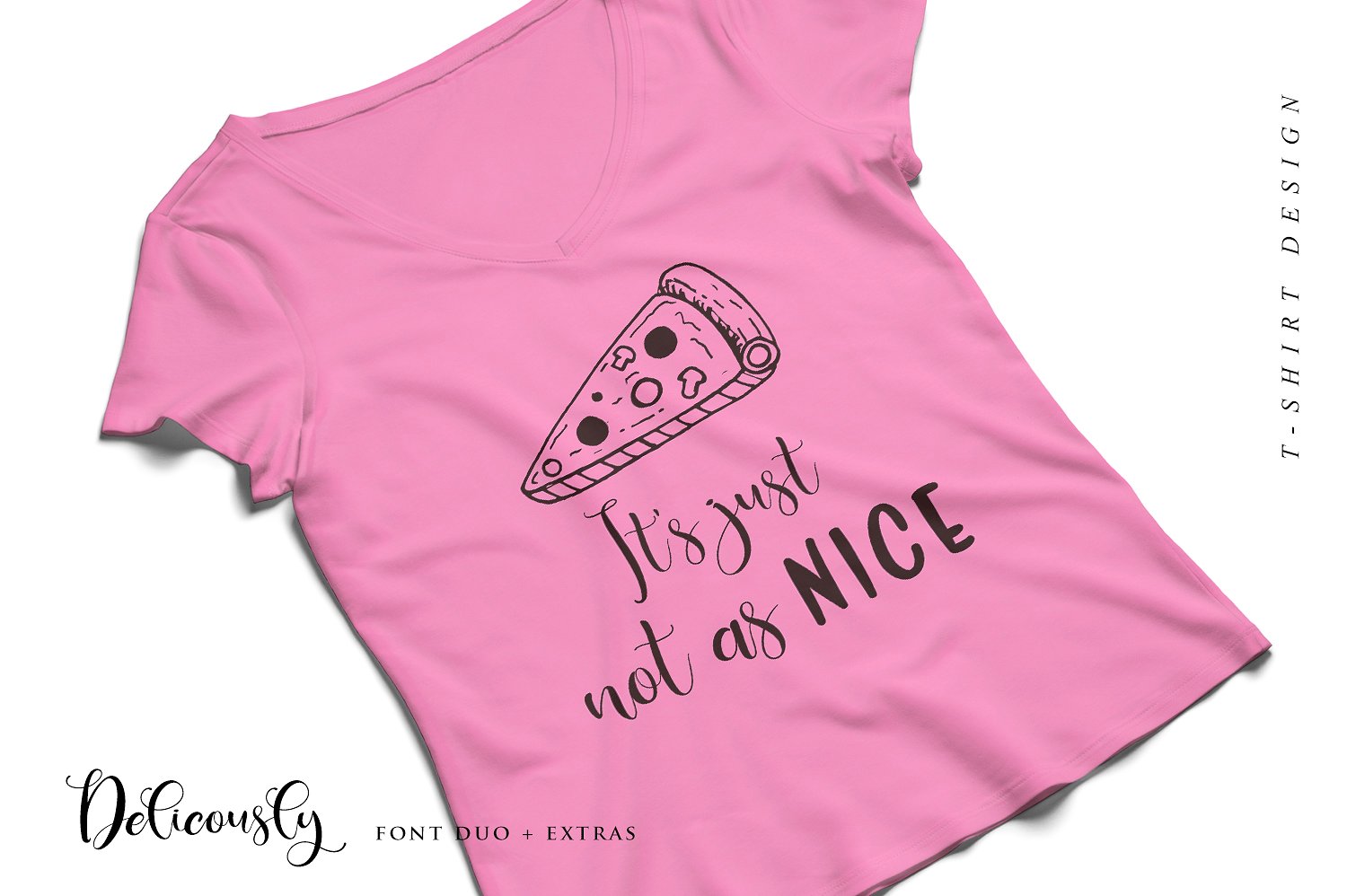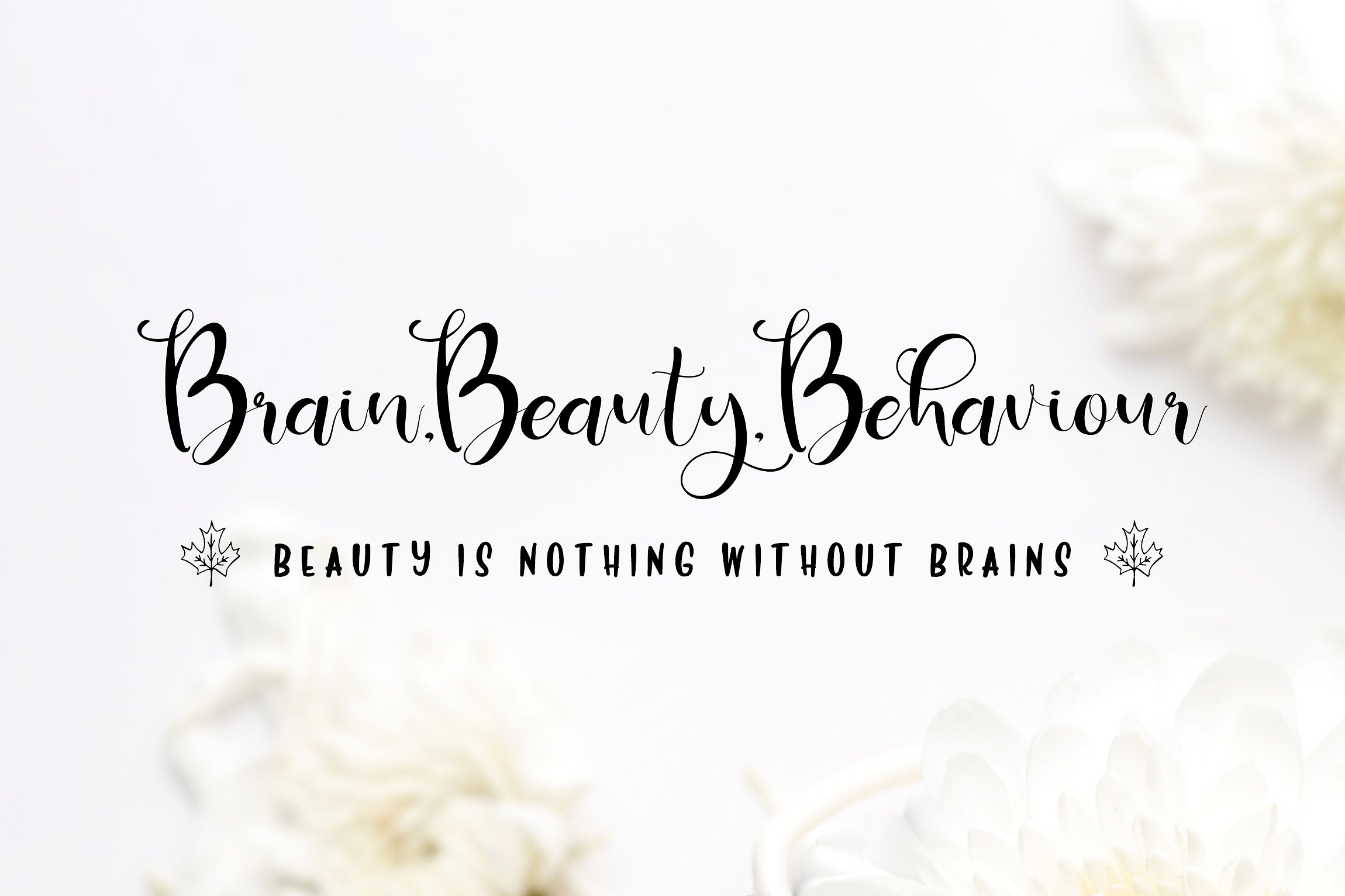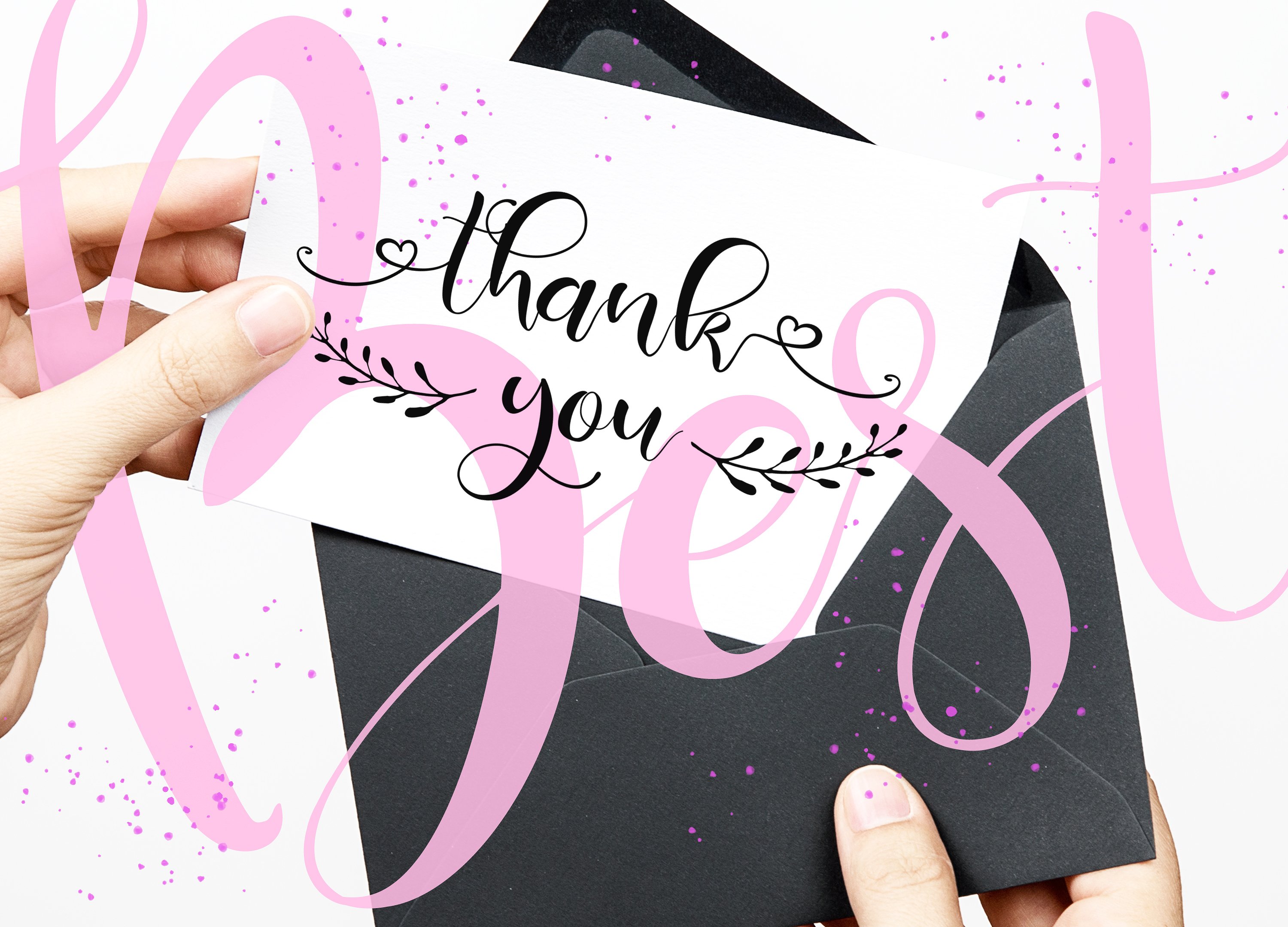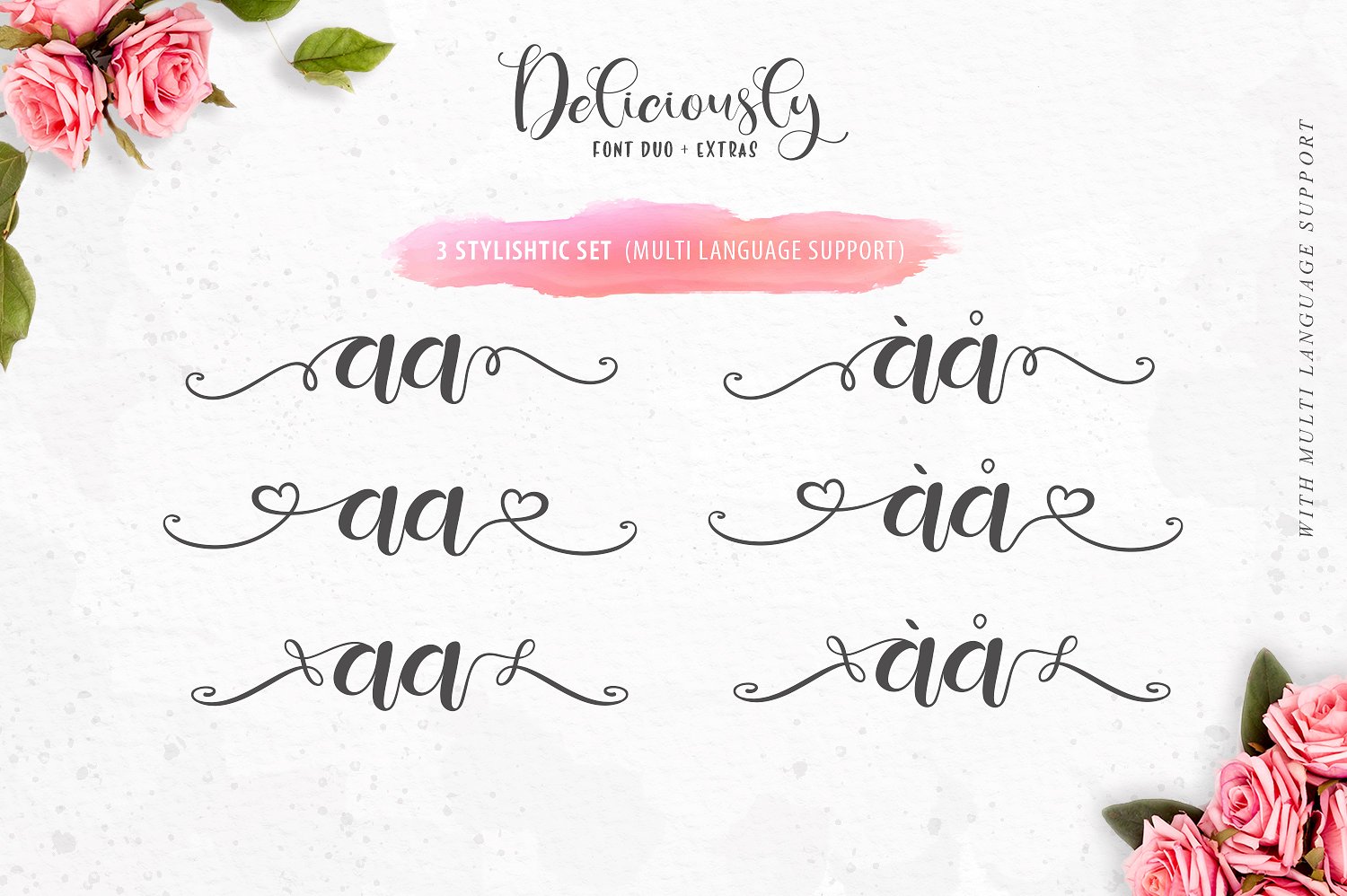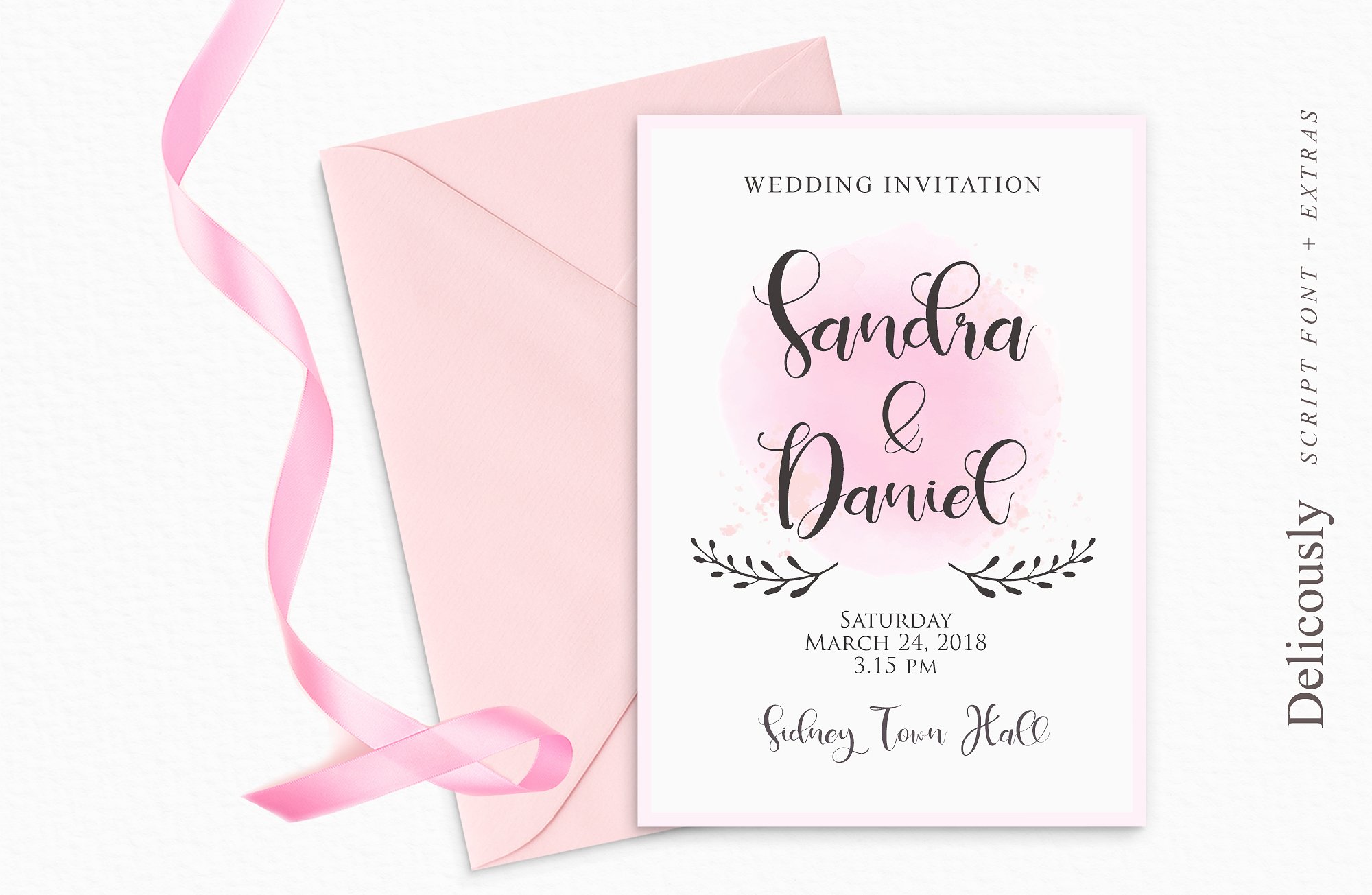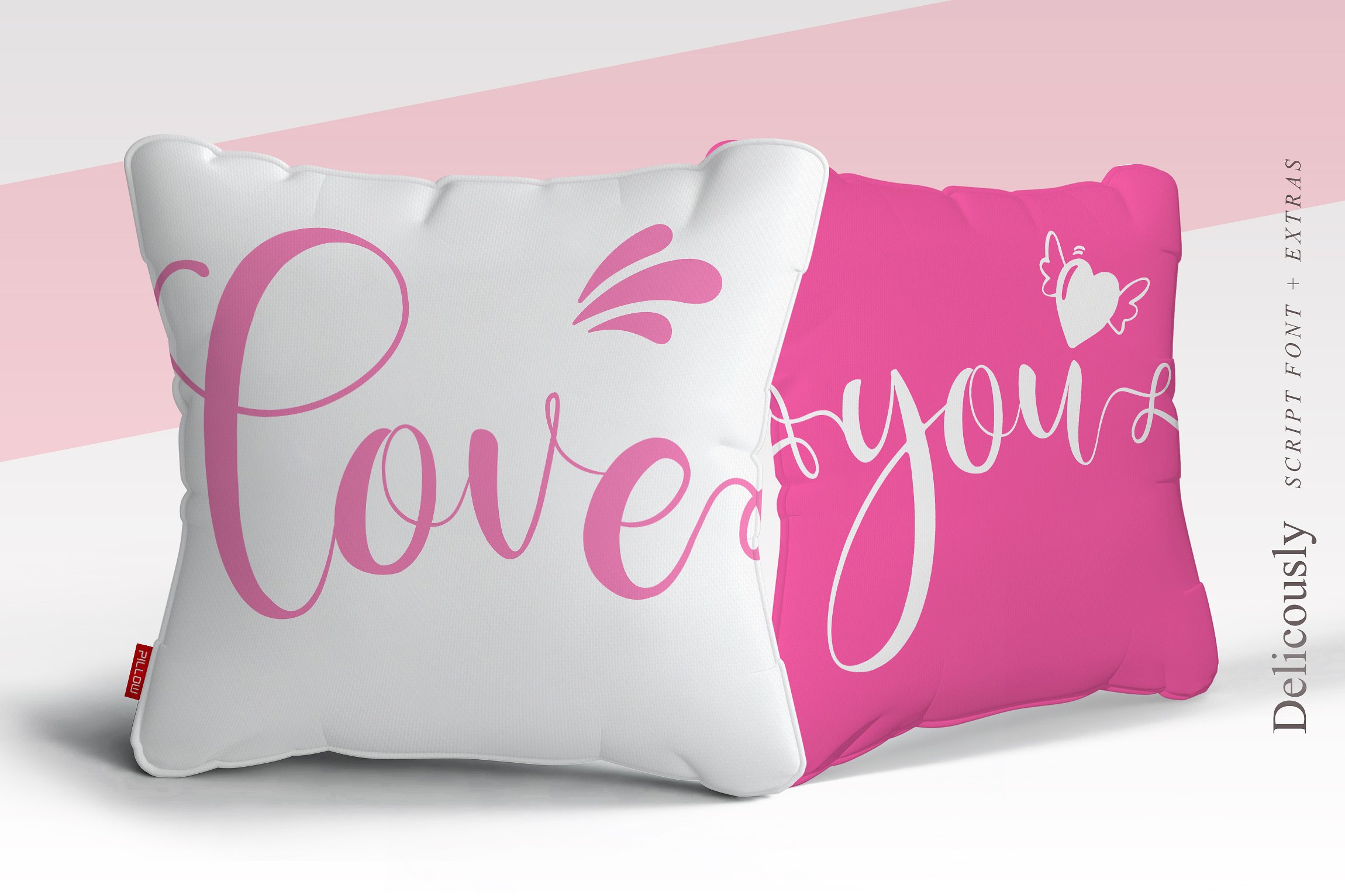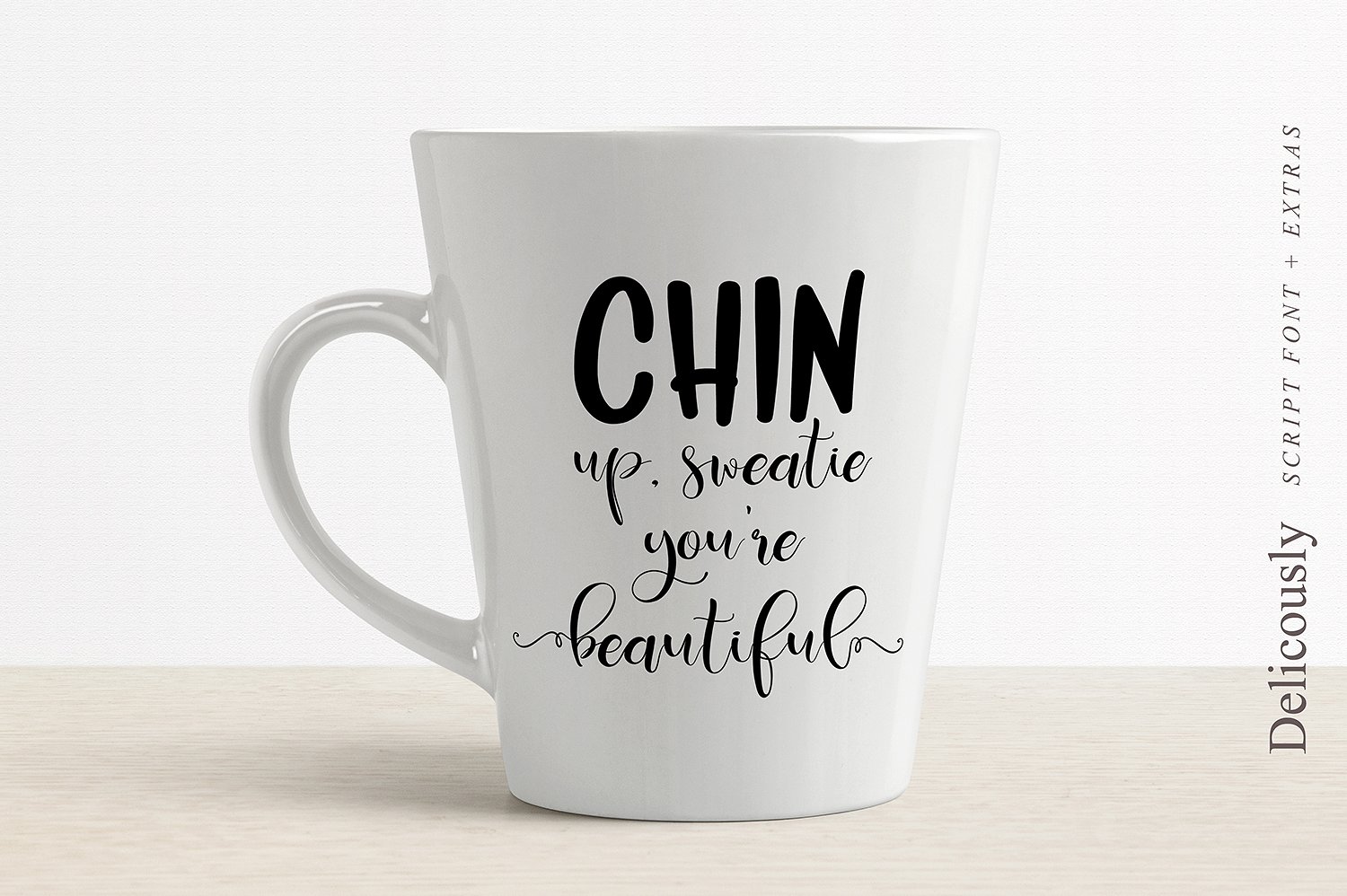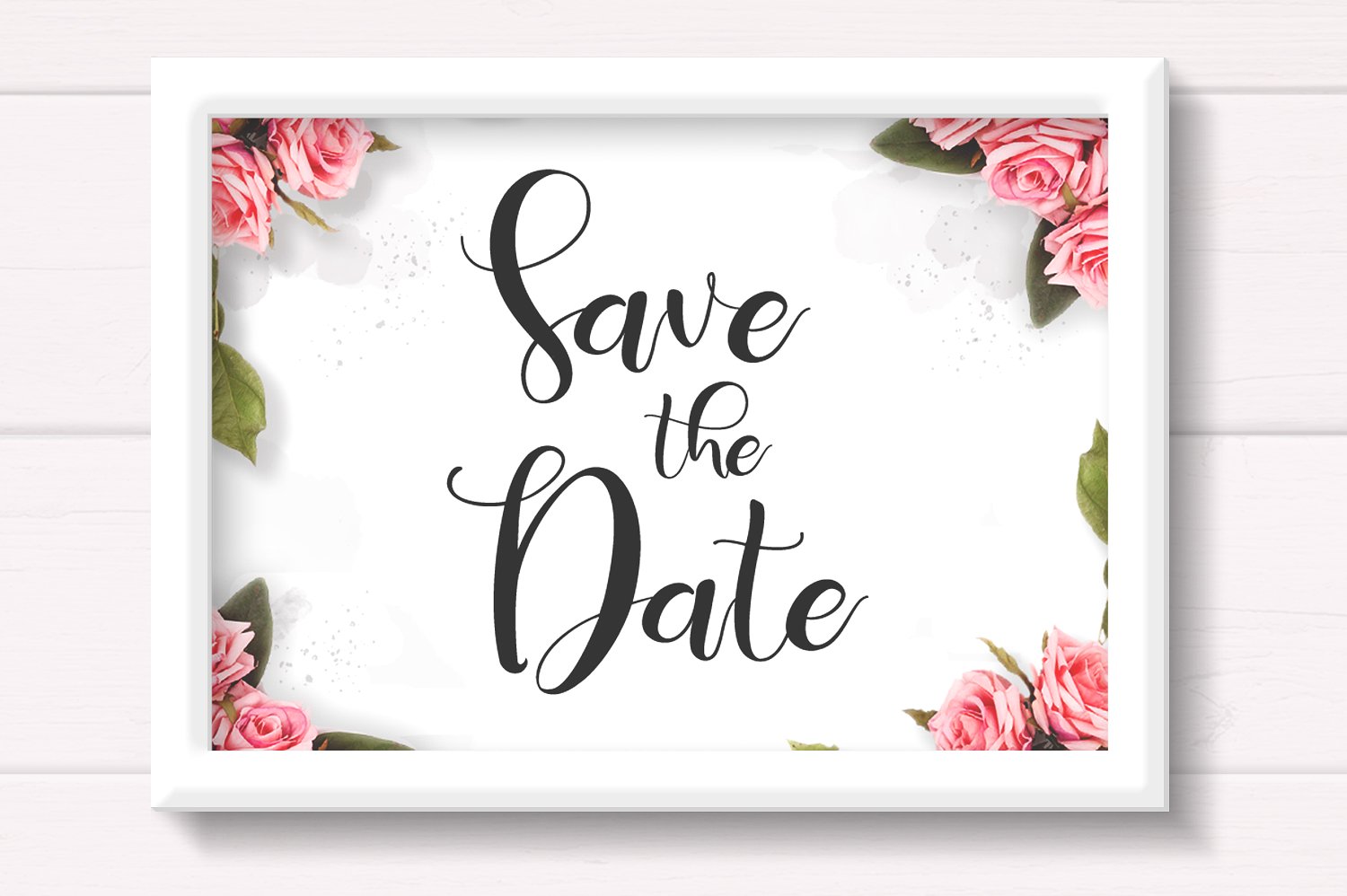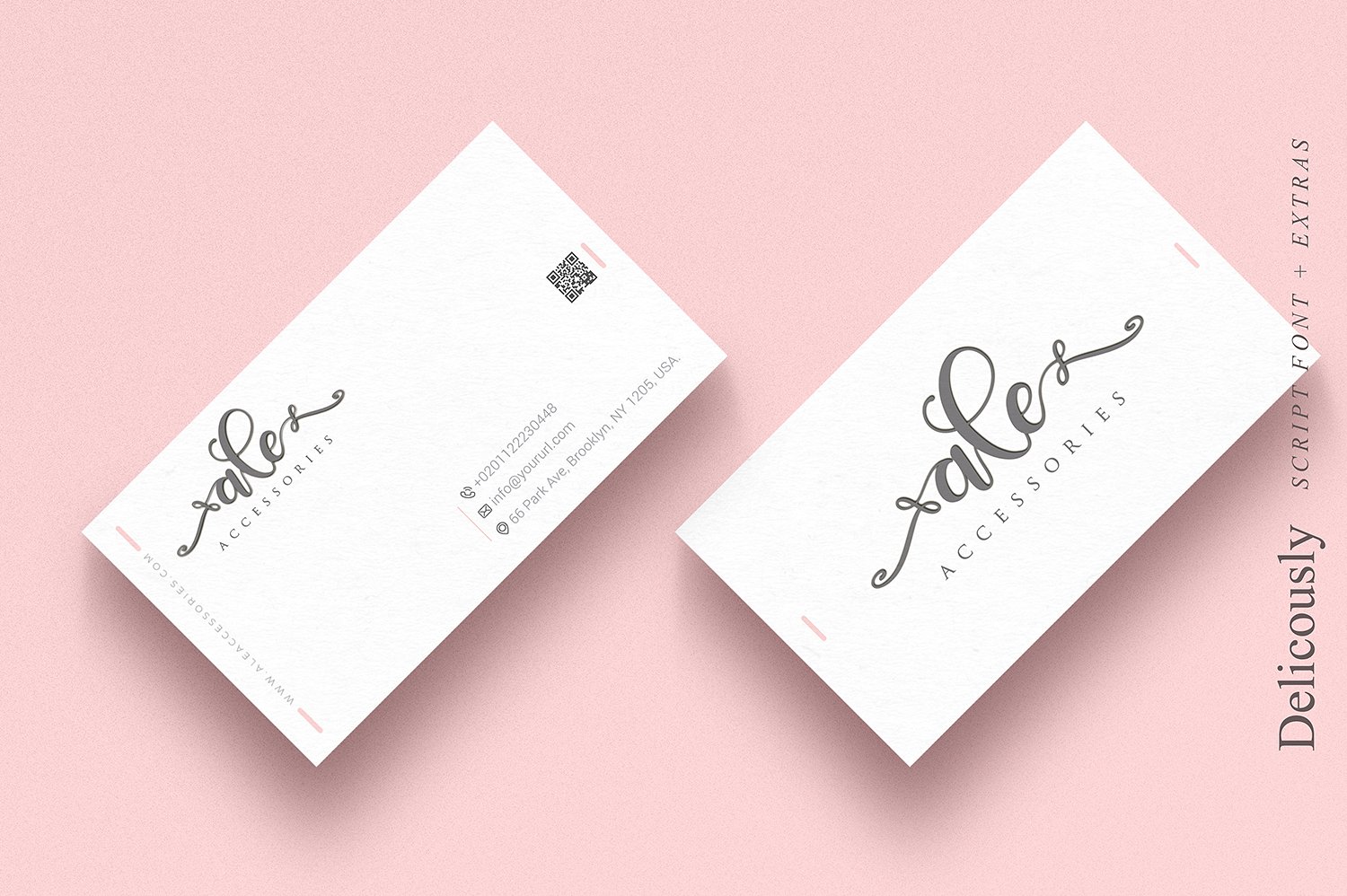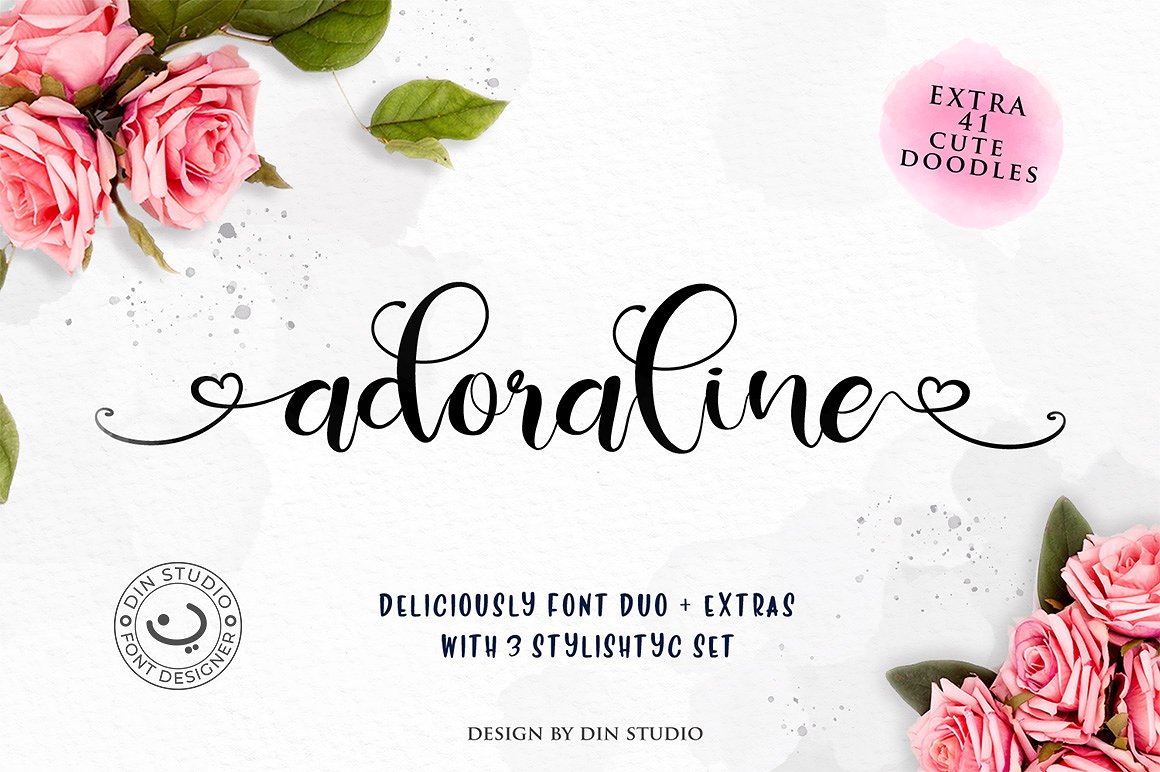
Deliciously Family (6 fonts)
From Din Studio
This font is great for logos, branding projects, product packaging, quotes, greeting cards and all your other lovely projects. Deliciously Font Duo Set comes with beautiful and playful styles. It contains a full set of lower & uppercase letters, a large range of punctuation, numerals, multilingual support and many cute alternates.
Donis Miftahudin, founder of DIN Studio and/or Donis4Design is a Yogyakarta, Indonesia-based designer and passionate typographer (b. 1990).